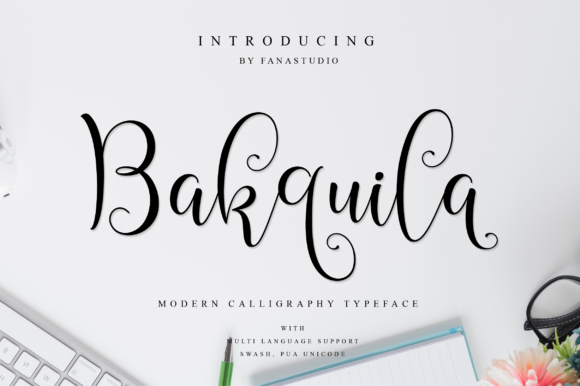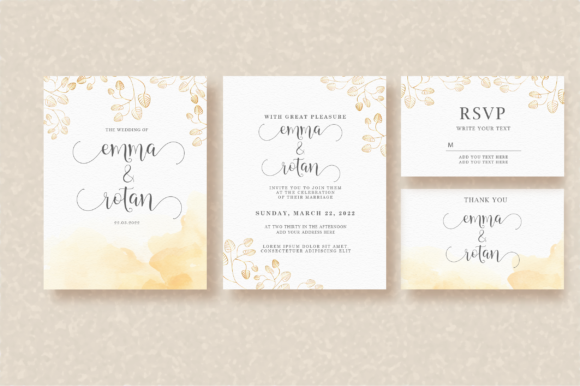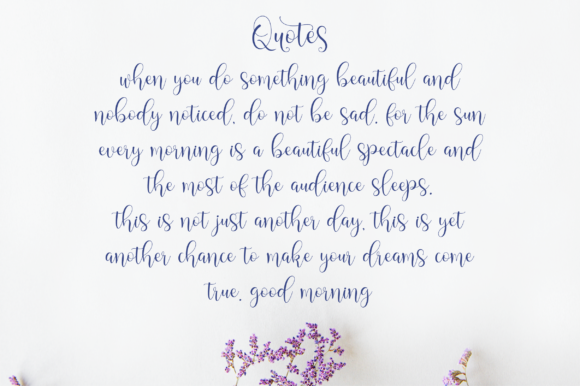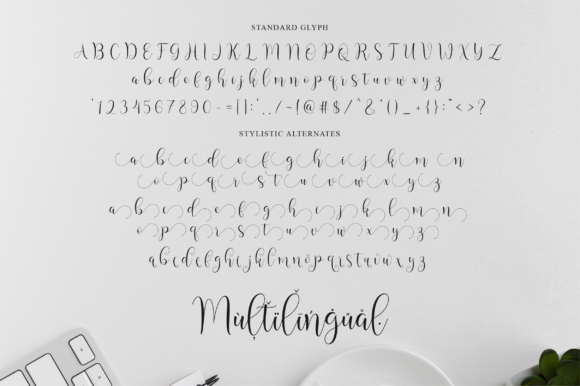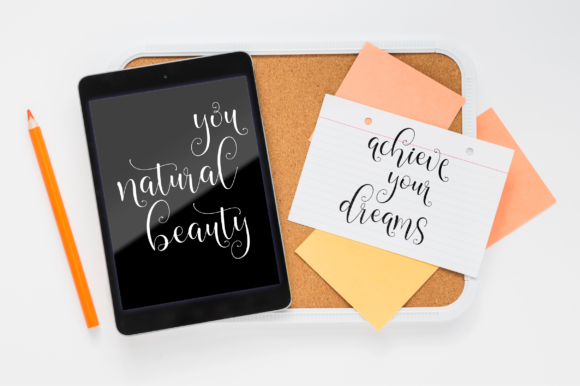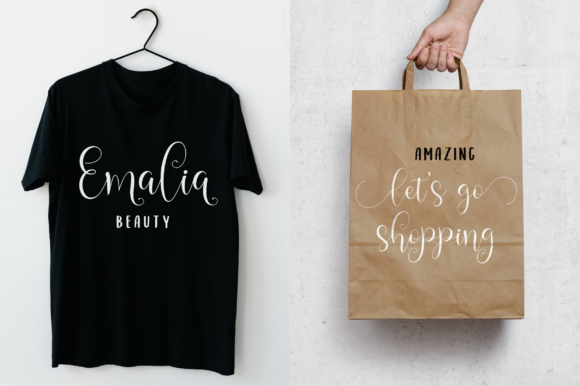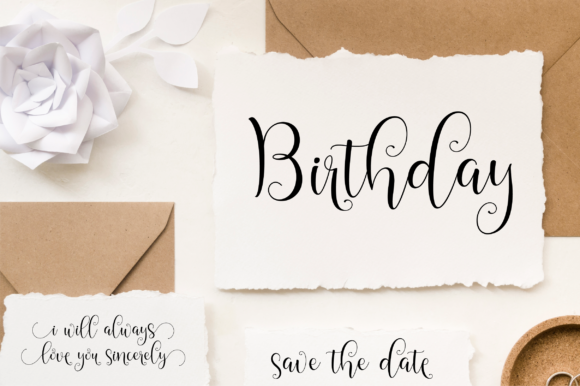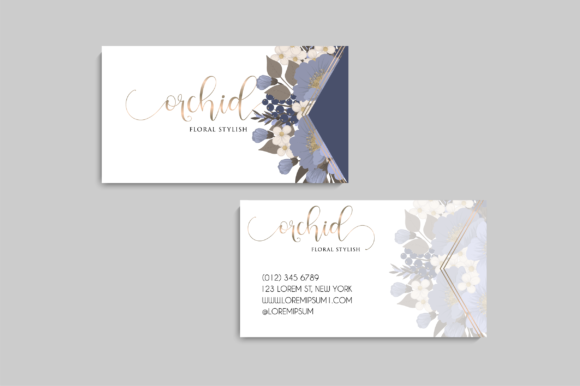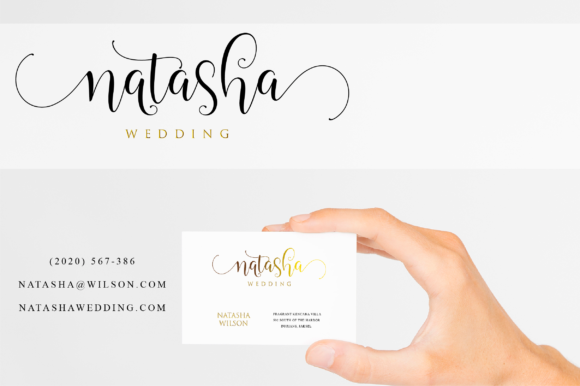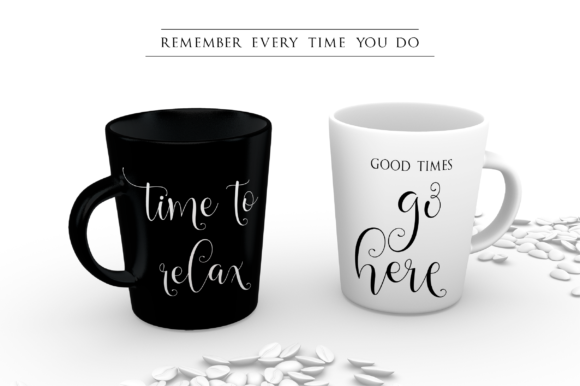
Bakquila Font
Bakquila is a stylish and timeless handwritten font. This font is PUA encoded which means you can access all of the glyphs and swashes with ease! It features a varying baseline, smooth lines, gorgeous glyphs and stunning alternates. Fall in love with its incredibly versatile style and use it to create spectacular designs!